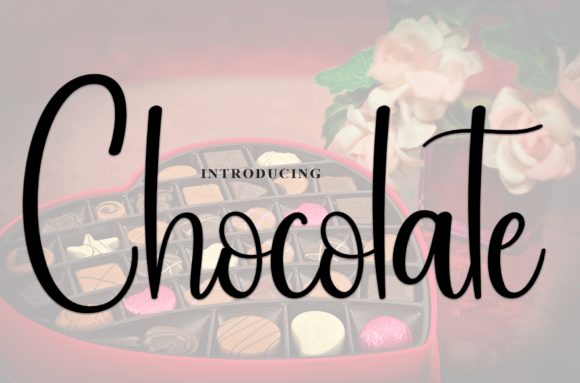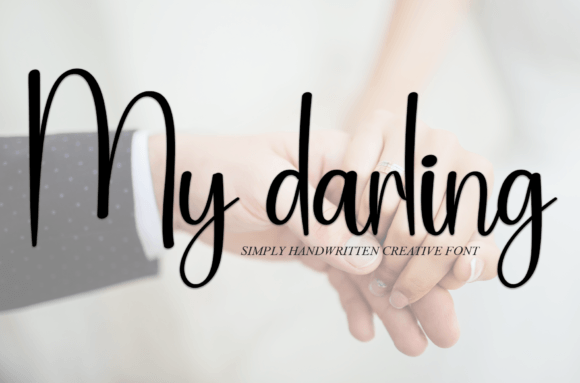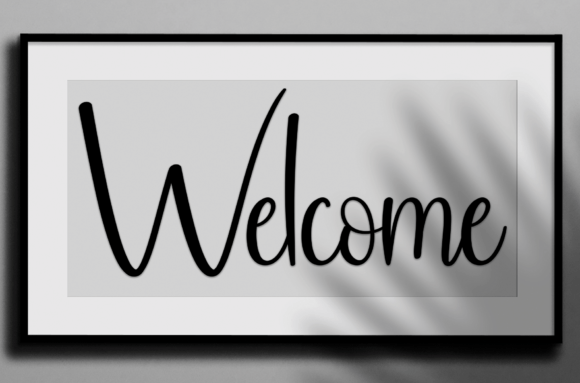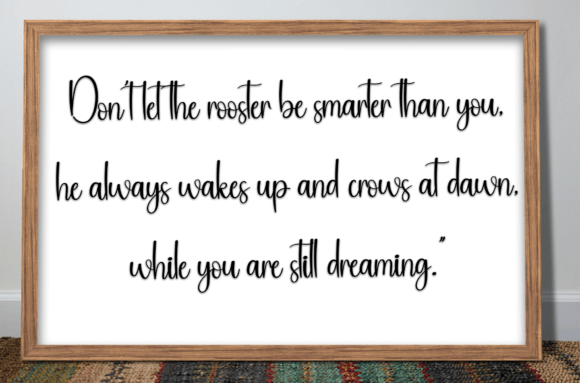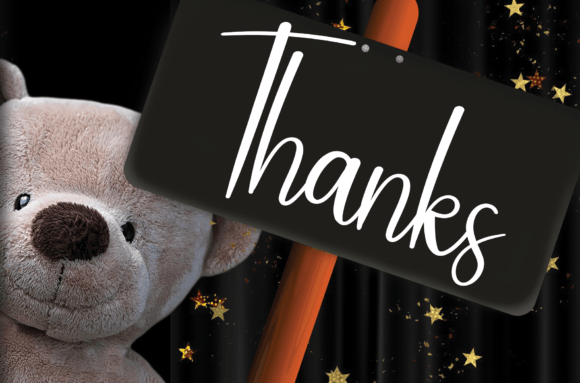
Story Valentine
About Story Valentine
Story Valentine is a sweet and friendly handwritten font. Creative and cute, this font is ideal for writing wedding invitations, cards, or any other design that might need a fun touch!